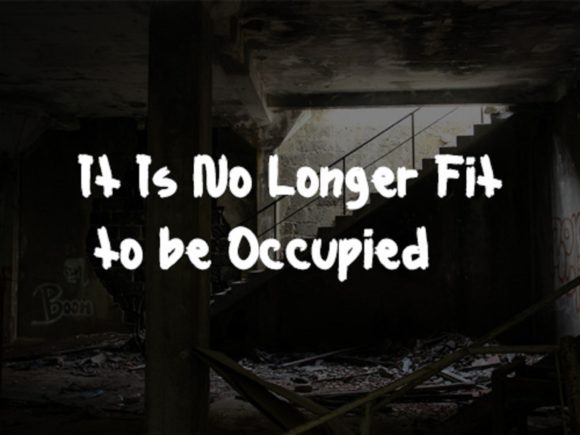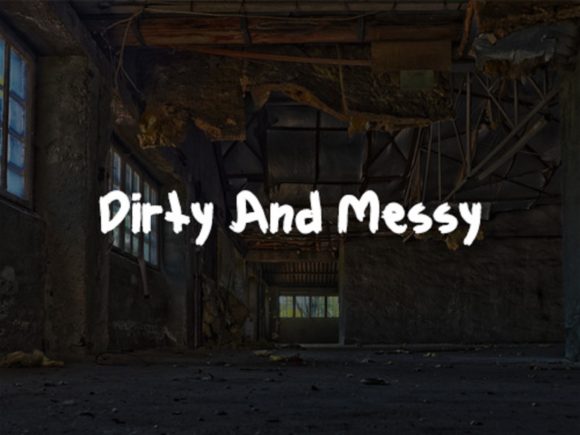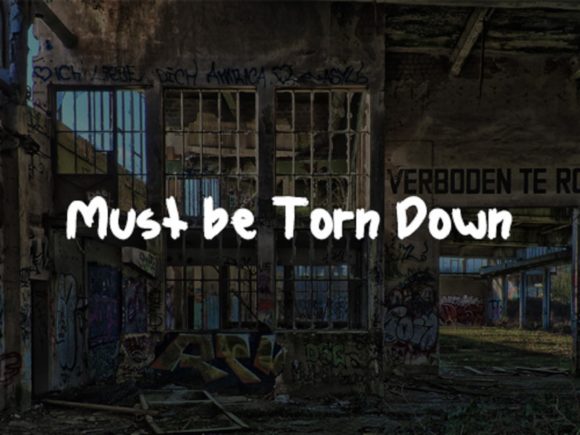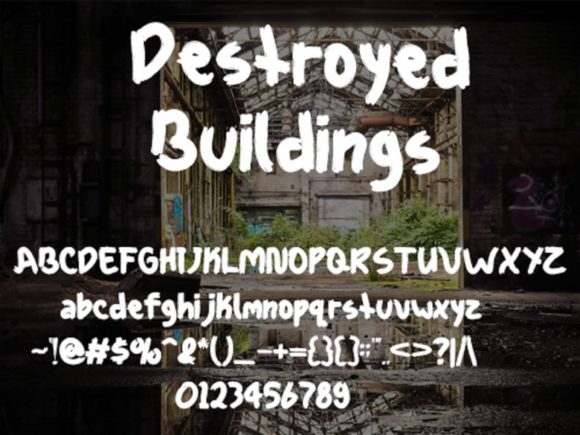
Destroyed Buildings Font: Elevate Your Designs with a Cool Brushed Display Font
Are you tired of using the same old fonts in your designs? Do you want to add a touch of uniqueness and edginess to your creations? Look no further than the Destroyed Buildings font, a cool brushed display font that is sure to take your designs to the next level. In this article, we’ll explore the features and benefits of this amazing font, and how it can enhance your font library.
What is Destroyed Buildings Font?
Destroyed Buildings is a brushed display font that is perfect for designers and crafters looking for a unique and eye-catching font. The font features a distressed, rough texture that gives it a worn and weathered look, making it perfect for designs that require a bold and edgy feel. Whether you’re working on a logo, poster, or social media graphic, Destroyed Buildings font is sure to make your design stand out.
Key Features of Destroyed Buildings Font
• Unique Brushed Texture: The font features a distinctive brushed texture that gives it a rough and distressed look.
• Display Font: Destroyed Buildings is a display font, making it perfect for headlines, titles, and other large text elements.
• Versatile: The font can be used for a wide range of design projects, from logos and posters to social media graphics and more.
• Easy to Read: Despite its distressed texture, the font is still easy to read, making it perfect for designs that require a bold and eye-catching headline.
Benefits of Using Destroyed Buildings Font
So why should you add Destroyed Buildings font to your font library? Here are just a few benefits of using this amazing font:
• Adds Edginess to Your Designs: The font’s distressed texture gives it a bold and edgy feel that is sure to add a unique touch to your designs.
• Enhances Creativity: With Destroyed Buildings font, you can create designs that are truly one-of-a-kind and eye-catching.
• Perfect for Bold Headlines: The font’s large and bold texture makes it perfect for headlines and titles that need to grab attention.
• Compatible with a Wide Range of Designs: Whether you’re working on a logo, poster, or social media graphic, Destroyed Buildings font is sure to fit right in.
How to Use Destroyed Buildings Font
Using Destroyed Buildings font is easy. Here are a few tips to get you started:
• Pair it with a Simple Font: Pair Destroyed Buildings font with a simple font to create a bold and eye-catching design.
• Use it for Headlines: The font’s large and bold texture makes it perfect for headlines and titles.
• Experiment with Colors: Try pairing the font with different colors to create a unique and eye-catching design.
In conclusion, Destroyed Buildings font is a cool brushed display font that is sure to elevate your designs to the next level. With its unique texture and versatile design, this font is perfect for designers and crafters looking to add a touch of edginess to their creations. Whether you’re working on a logo, poster, or social media graphic, Destroyed Buildings font is sure to be a wonderful asset to your font library.